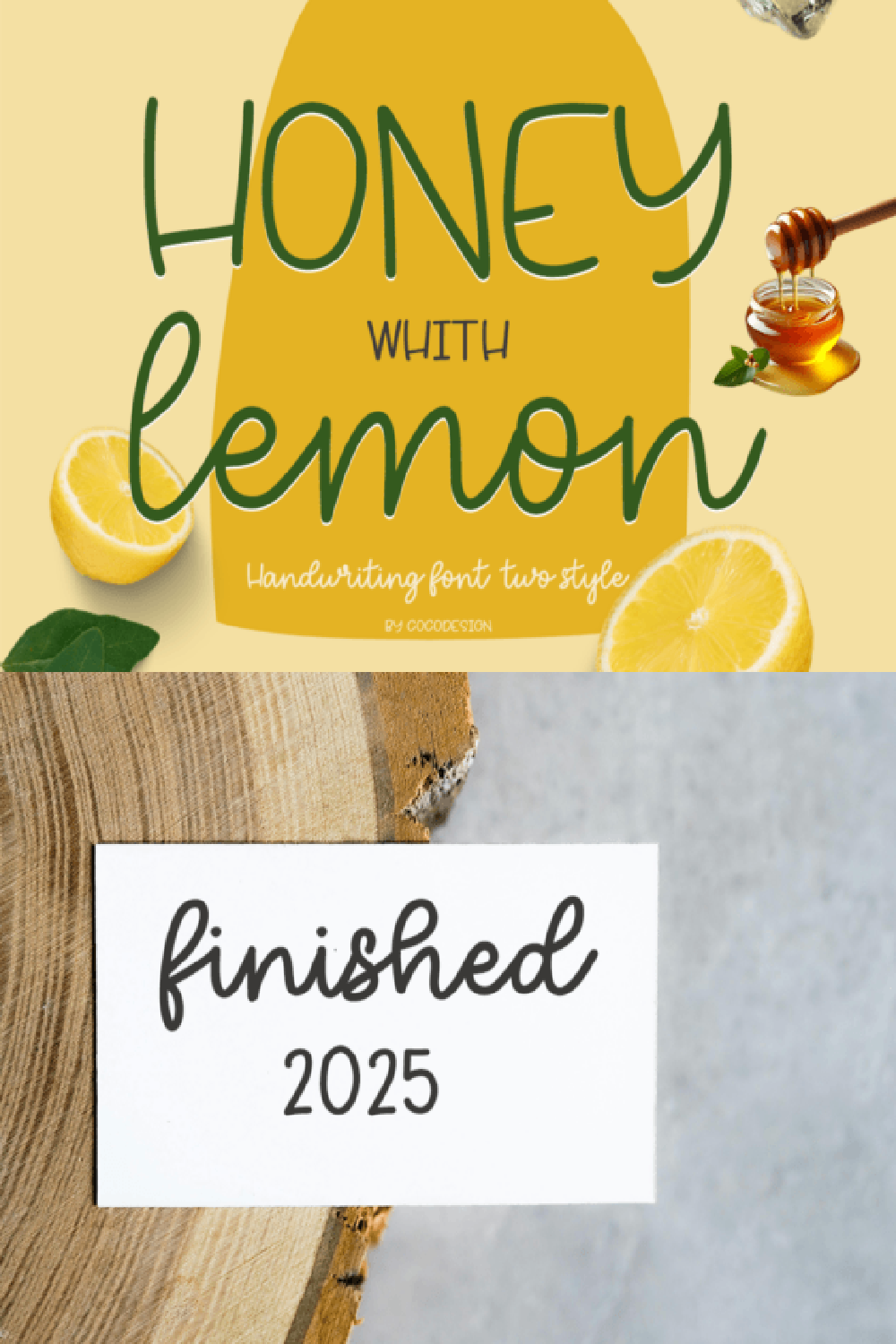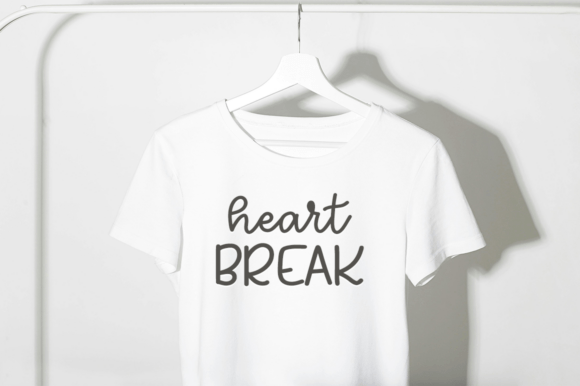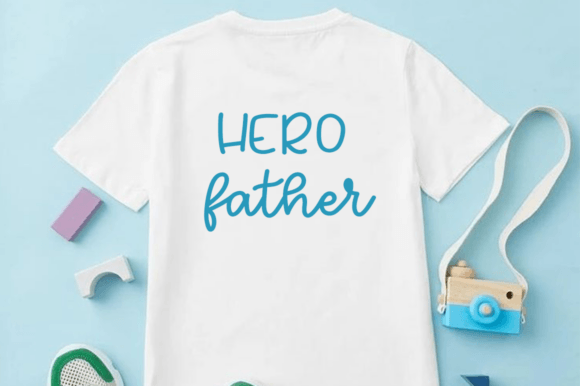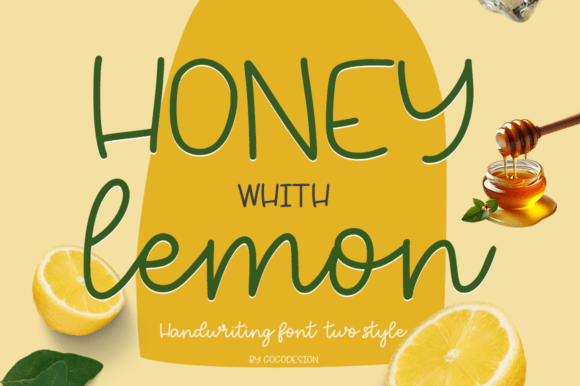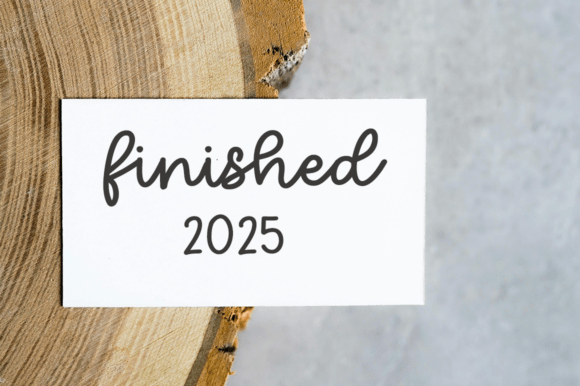
Honey Lemon Font
About the Honey Lemon Font
Presenting Honey Lemon Font, a unique and stylish typeface that will make your work stand out. Unveiling Honey Lemon, an enchantingly sweet handwritten script font, finely crafted for Cricut and more, to fuel your creativity without limits. Ideal for bringing a touch of warmth and charm to your projects, whether you’re an ardent Cricut hobbyist or on the quest for a delightful cursive font. Outstandingly versatile, this font adds a personalized sophistication to your invitations, special occasion cards, and crafted decor. Flood your designs with a sense of heartwarming charisma using our Cute Script Font, compatible with Cricut SVGs, Goodnotes, Procreate, and numerous other platforms. Embrace Honey Lemon to transform your projects into mesmerizing masterpieces, making it an irresistible selection for those desiring a thought-provoking and dynamic typeface.